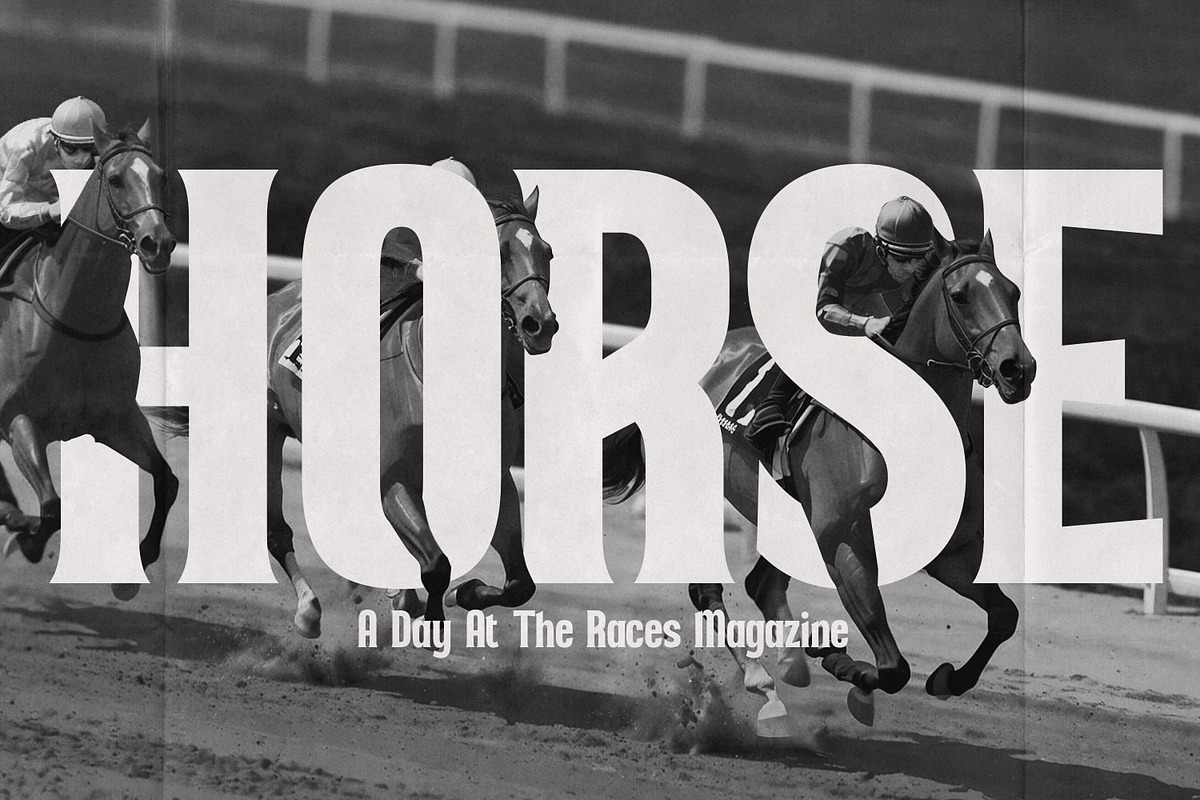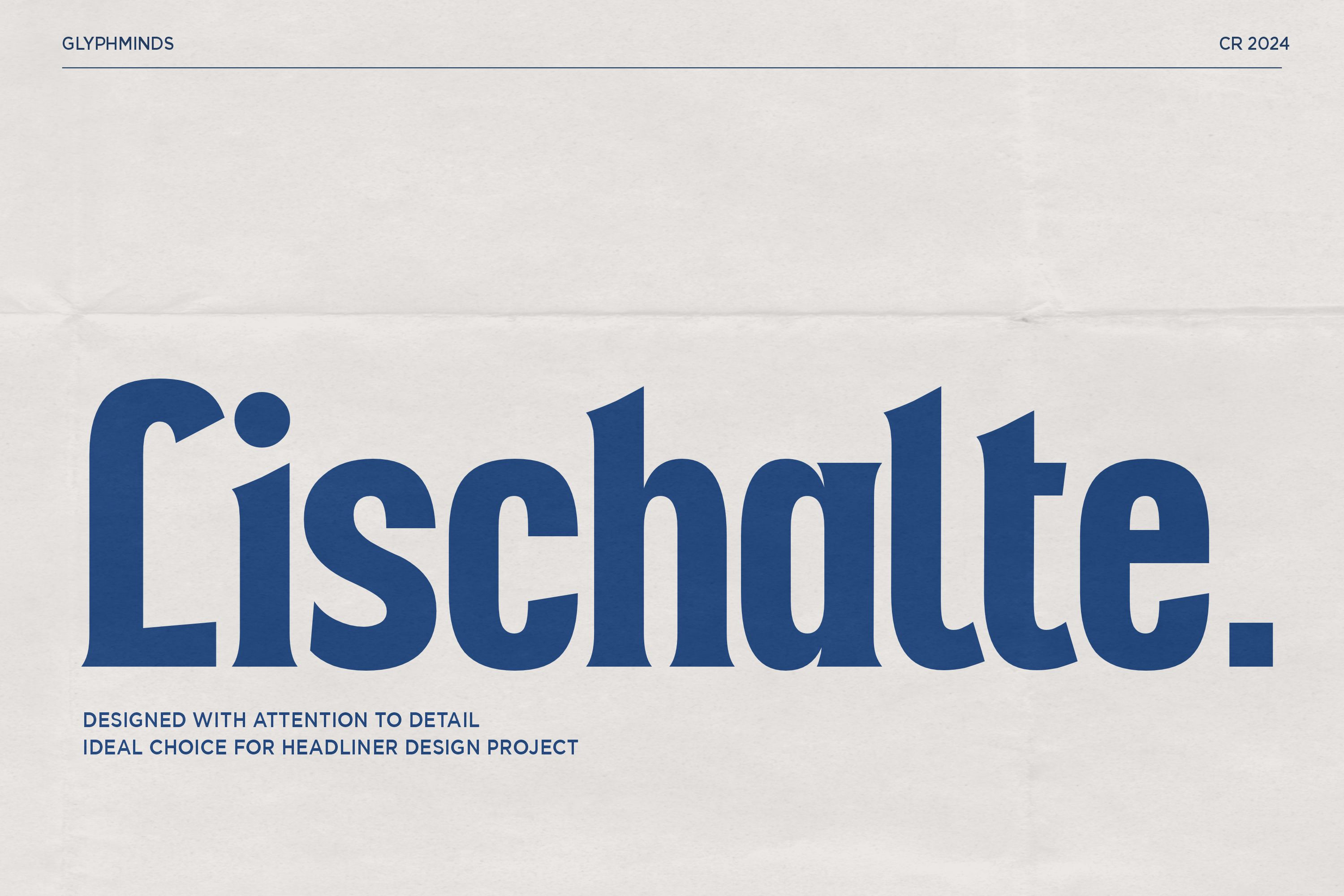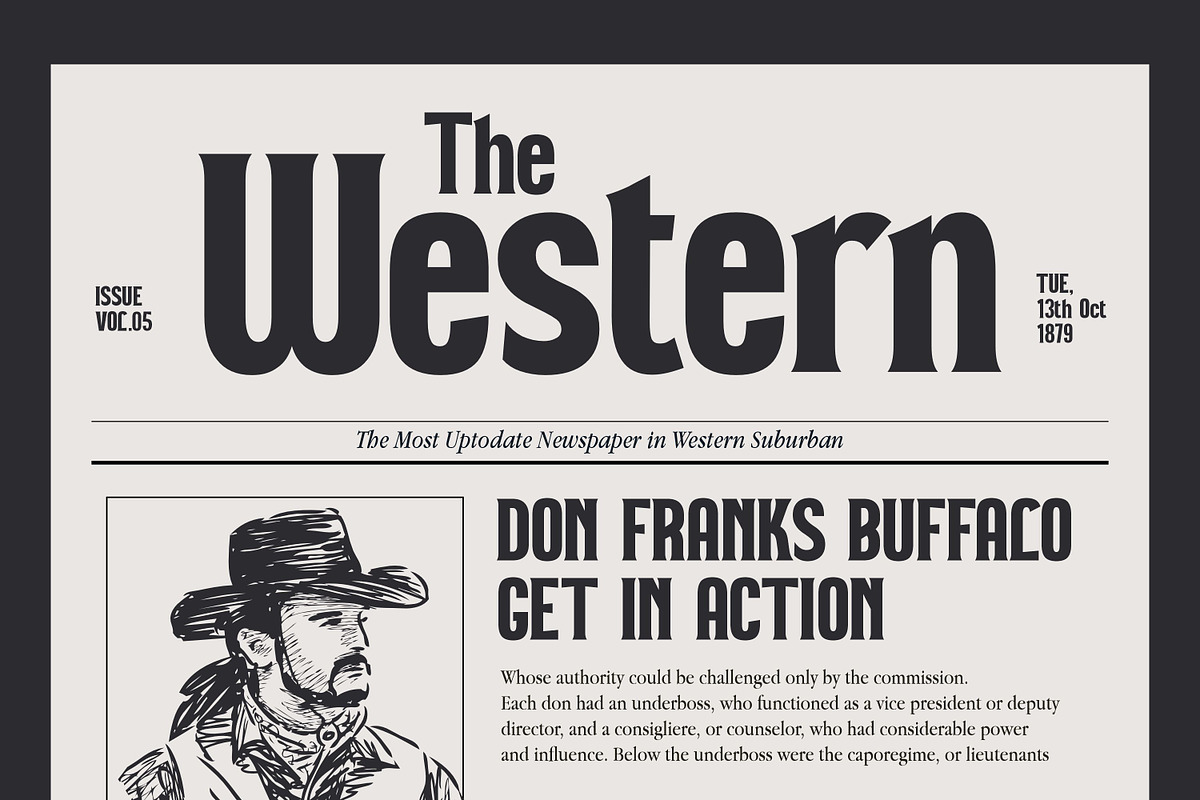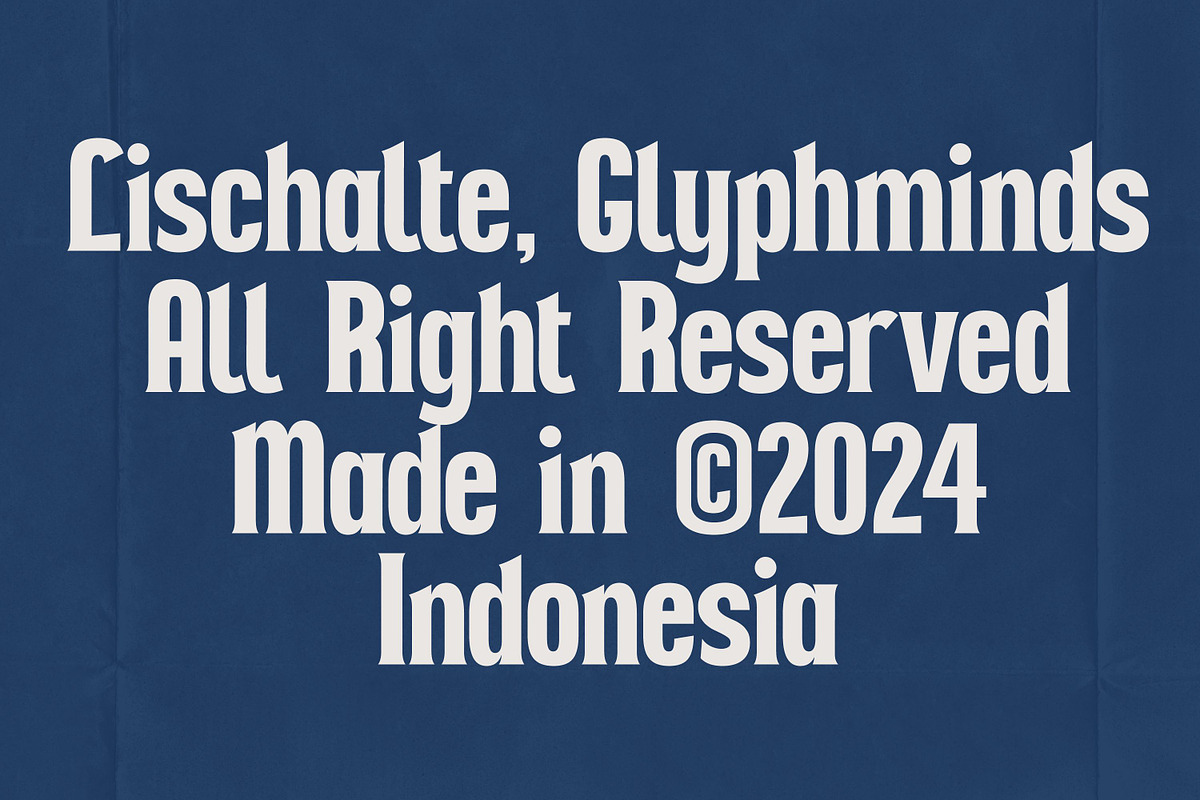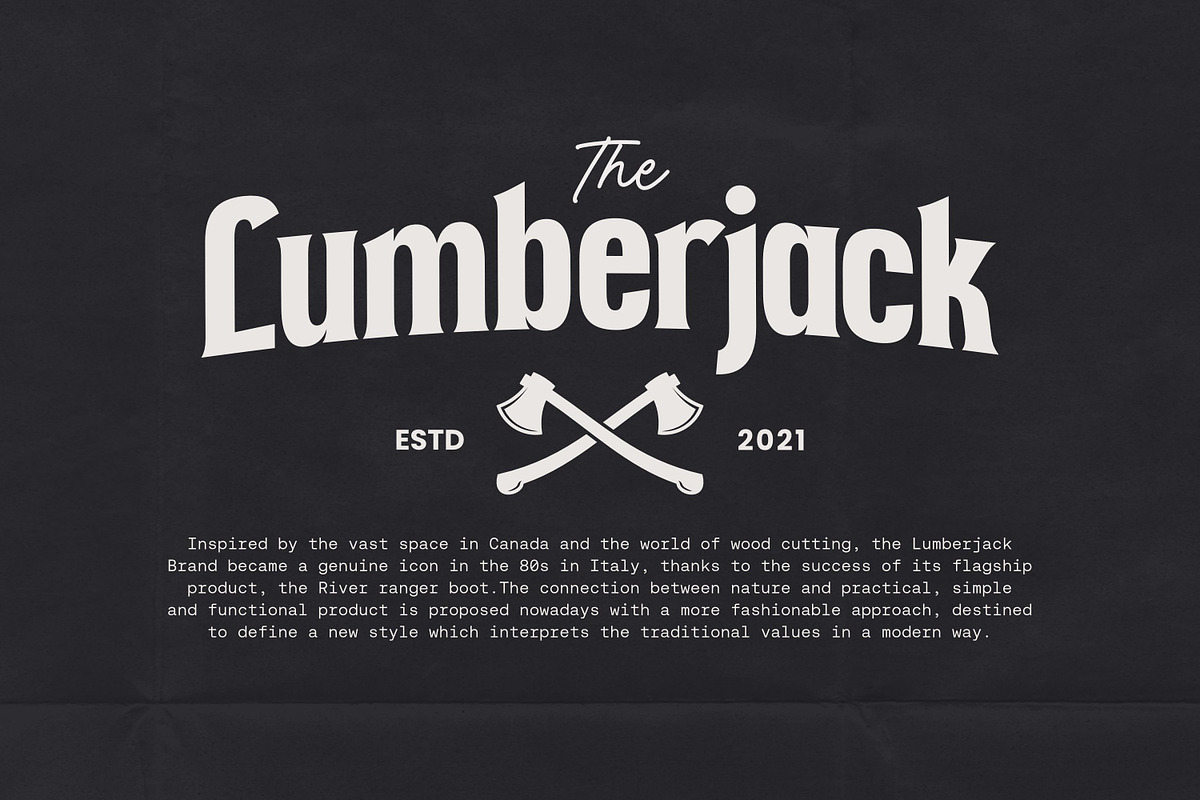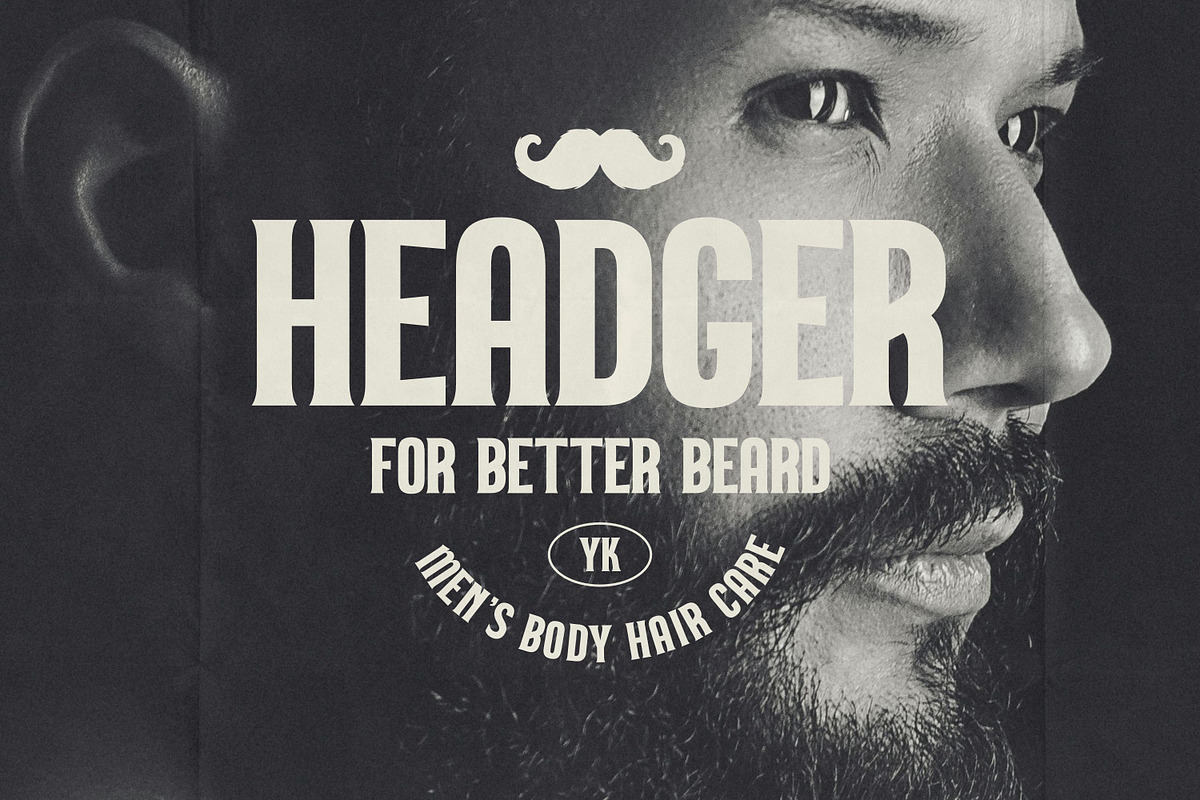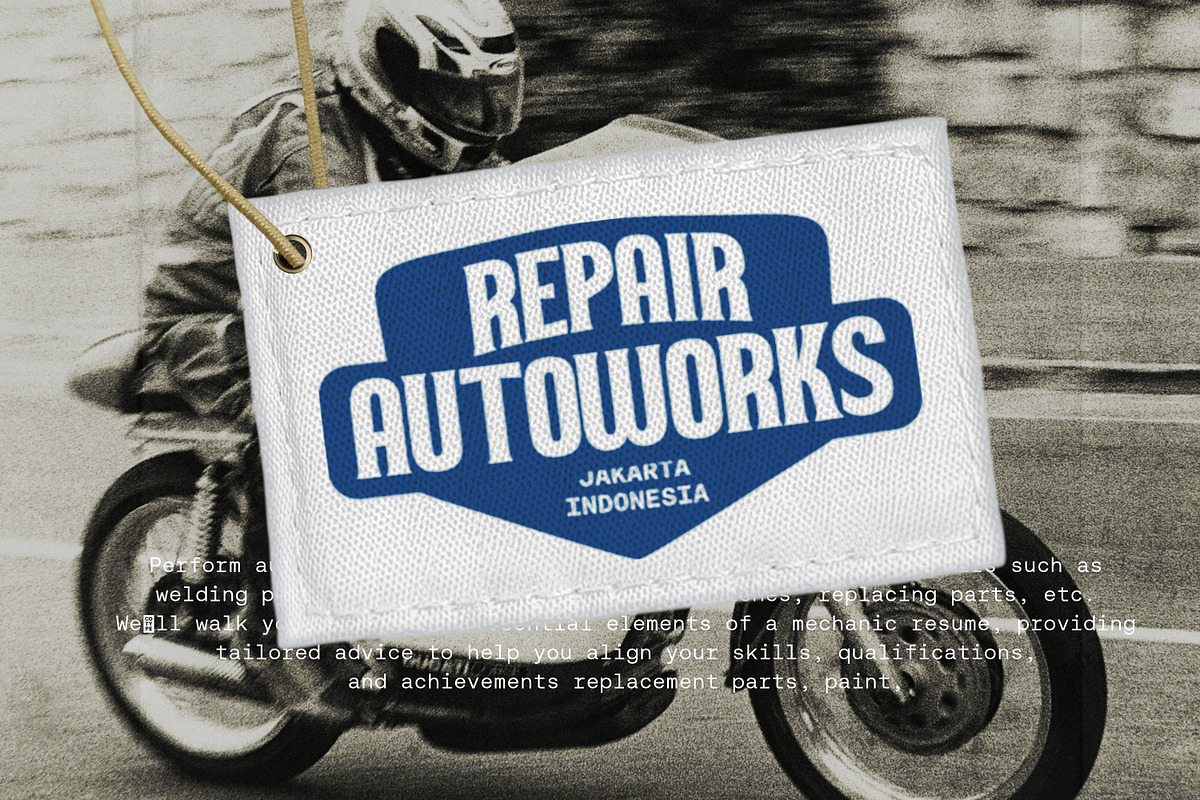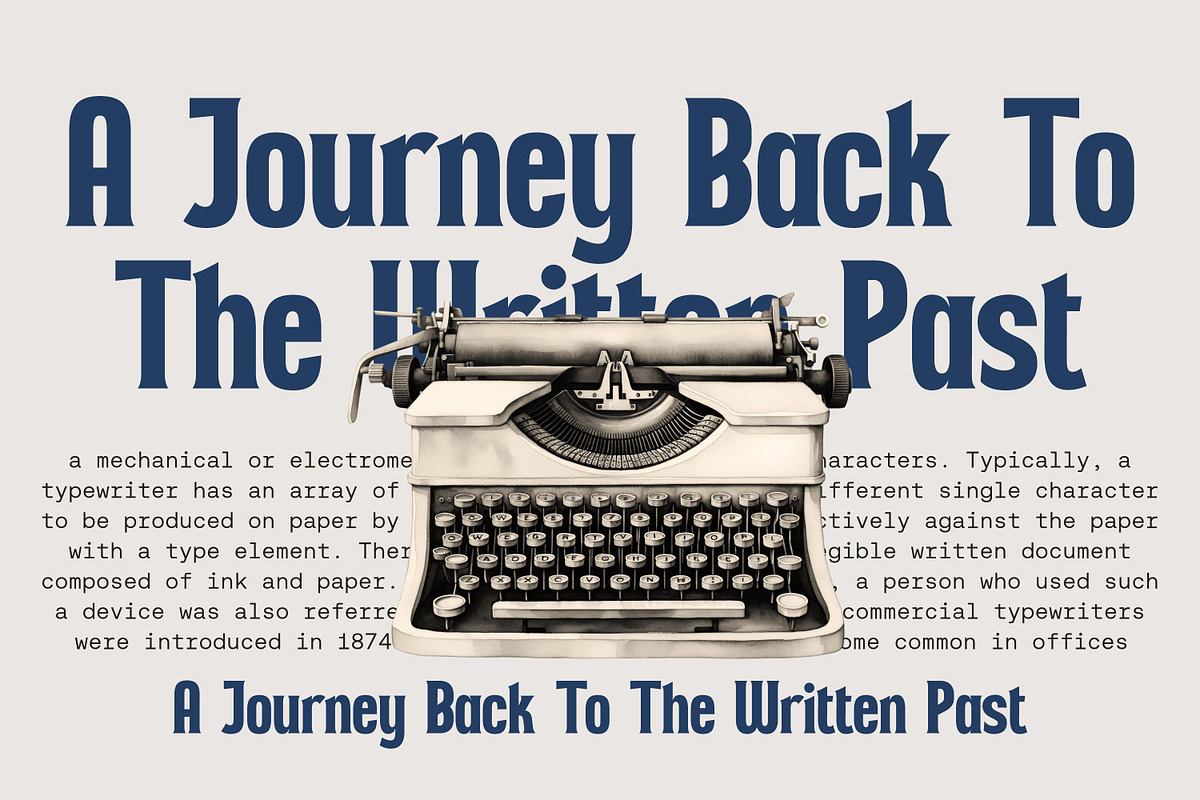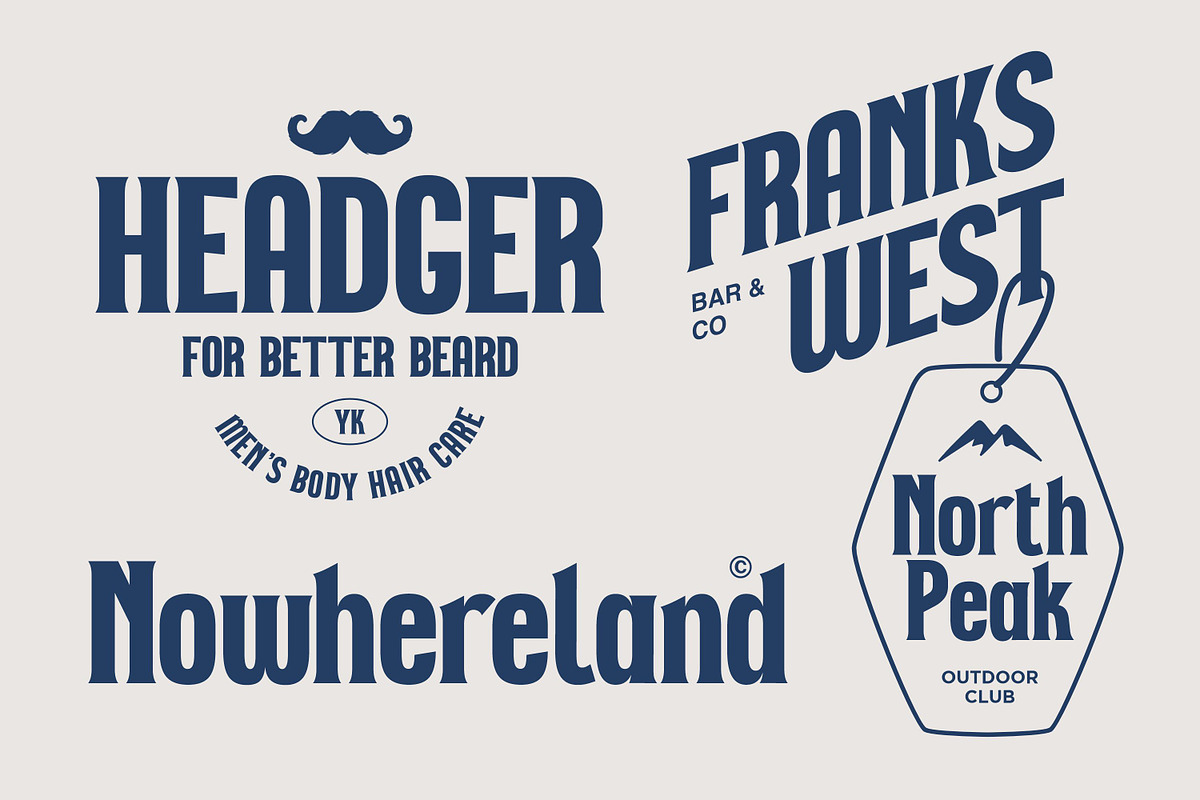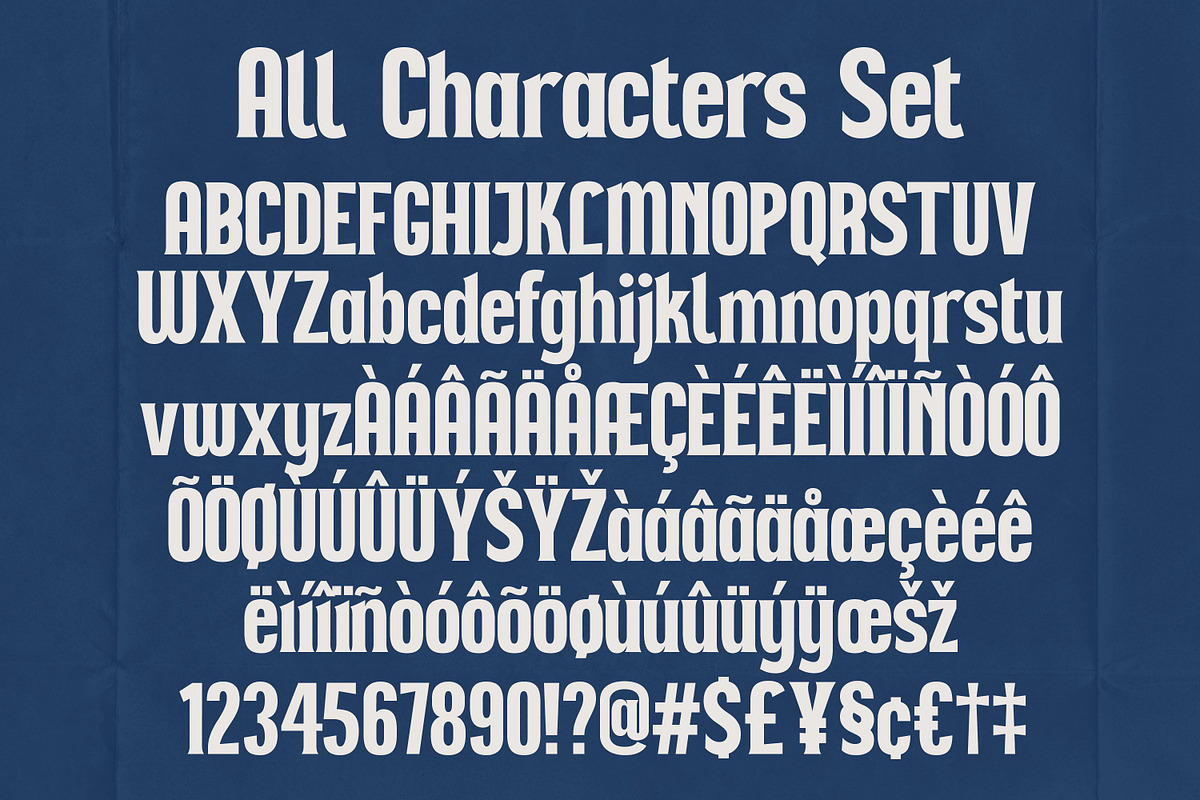
Lischalte Typeface
Lischalte is a meticulously designed typeface that combines elegance and strength, making it perfect for impactful headlines and branding. With its classic curves and modern edges, Lischalte brings a unique personality that stands out across various design projects. Whether you're crafting magazine covers, posters, or branding assets, this font's versatility and bold appearance ensure your message is conveyed with authority and style. Get Lischalte today and make every word count